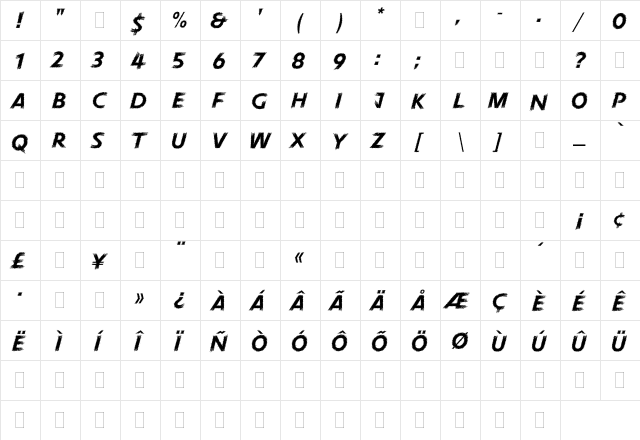
PneumaPlain Regular
Design Context for PneumaPlain Typeface
PneumaPlain is a composed and adaptable typeface that performs quietly and consistently across a wide range of design contexts.